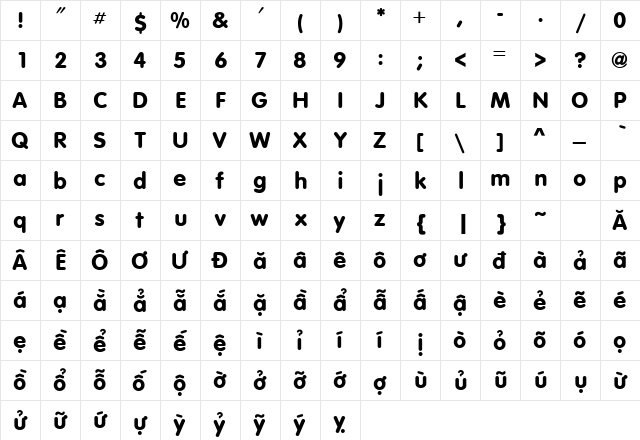
.VnVogue Medium
Design Context for .VnVogue Typeface
.VnVogue is a composed and adaptable typeface that performs quietly and consistently across a wide range of design contexts.